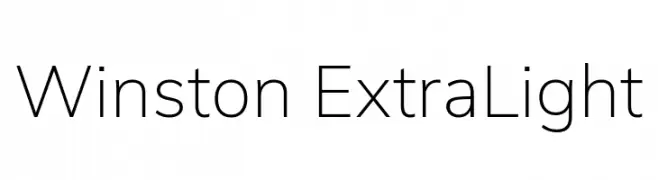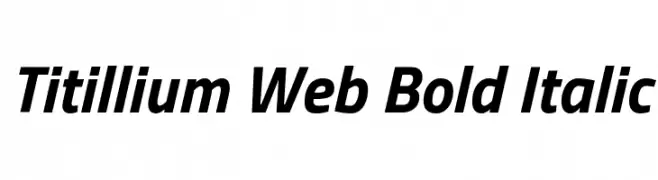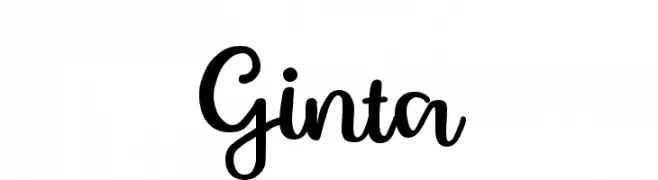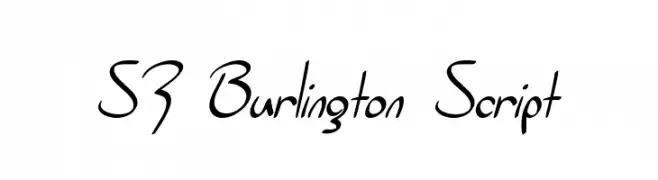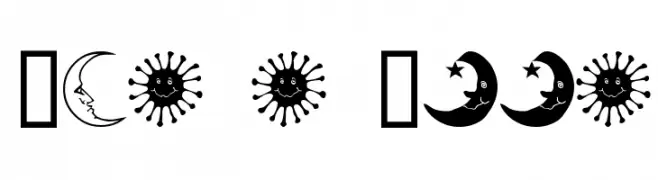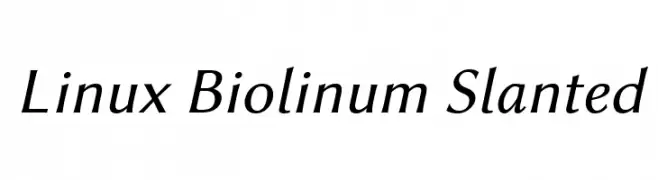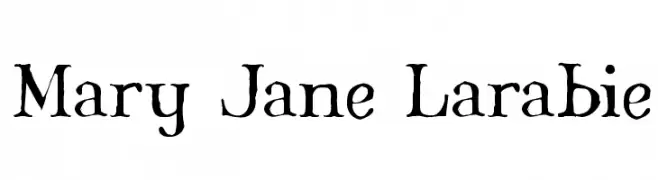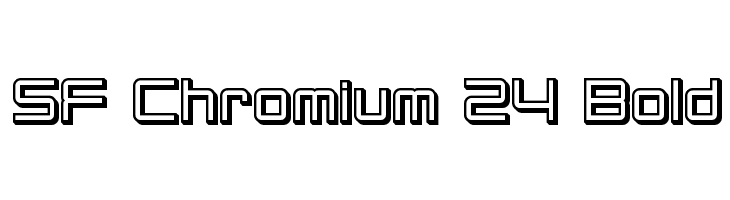
A clean, modern, and extra light font perfect for minimalist designs.
A modern, bold, and italicized font with medium contrast and smooth strokes.
A bold, playful font with chunky, cartoonish letterforms.
A playful and flowing script font with a charming, handwritten quality.
A flowing, cursive script font with elegant, connected strokes.
A bold, distressed font with a vintage, rugged appearance.
A bold, dynamic script font with a strong, energetic presence.
A hand-drawn, rustic font with uneven strokes and a whimsical style.